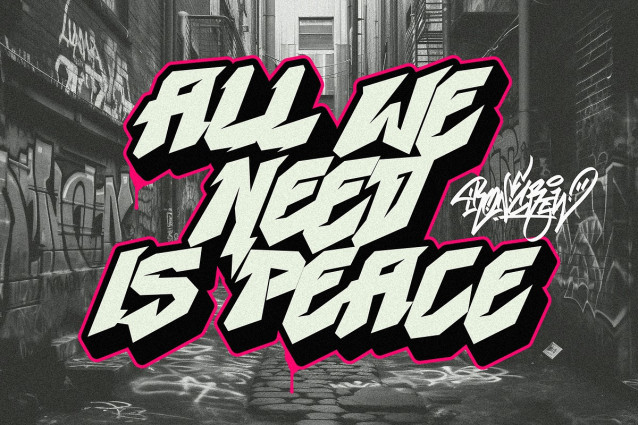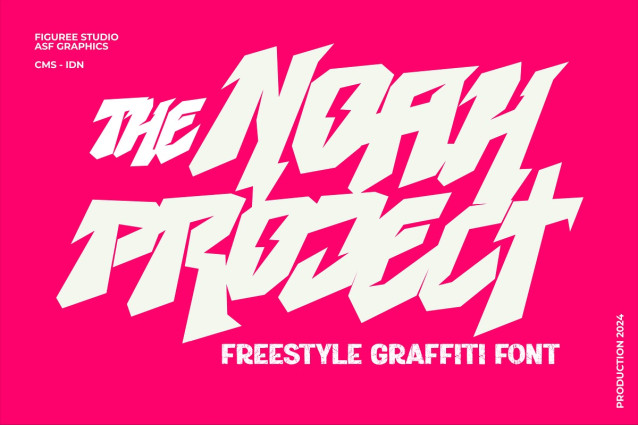
Noah Project Font
Noah Project Font – the freestyle graffiti font that unleashes urban creativity and rebellious spirit. Beyond the confines of streetwear and fashion, NoahProject is a dynamic tool for crafting bold and authentic designs across a spectrum of projects.
Urban Expression: Noah Project embodies the essence of urban creativity with its freestyle graffiti letterforms. Each character pulsates with the raw energy and spontaneous flair of street art, making it ideal for posters, digital graphics, album covers, and more.
Cityscape Inspiration: Drawing inspiration from the vibrant streets and colorful murals of the city, Noah Project infuses your designs with the dynamic energy of urban life. Whether for event promotions, social media graphics, or editorial layouts, this font adds an authentic urban vibe.
Unleash Your Creativity: Noah Project empowers you to push the boundaries of artistic expression in diverse projects. From branding materials to signage and beyond, its bold and expressive style captivates audiences and leaves a lasting impression.
Youthful Appeal: Embrace the rebellious spirit of street culture with Noah Project. Its gritty urban aesthetic resonates with young, creative audiences across various industries, connecting with anyone seeking to infuse their designs with urban edge and authenticity.
Versatile Application: Noah Project is not confined to any particular niche. Its versatility allows it to shine in a multitude of projects, including editorial layouts, digital advertisements, packaging designs, and more. Wherever creativity flows, NoahProject stands ready to make a statement.
Authentic Street Style: Whether you’re an experienced designer or a newcomer to the world of street art, Noah Project offers an authentic and dynamic style that captures the spirit of urban creativity. Its expressive letterforms command attention and inject vitality into any project.
Transform your designs into dynamic urban masterpieces with Noah Project – where graffiti meets typography, and creativity knows no bounds. It’s time to make your mark on the world with this best-selling freestyle graffiti font leading the way.